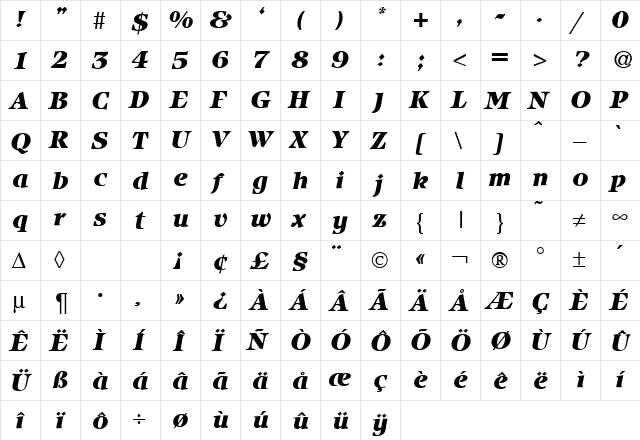
IcebergHeavy RegularItalic
Design Context for IcebergHeavy Typeface
IcebergHeavy takes a measured approach to typography — its balanced proportions and neutral character make it a reliable workhorse for both digital and print work. The dynamic lean of this cut emphasises speed and emphasis in any layout.
Pro Tip: Try IcebergHeavy for annotation and caption copy alongside an upright companion — the contrast in angle creates a dynamic but ordered typographic system.